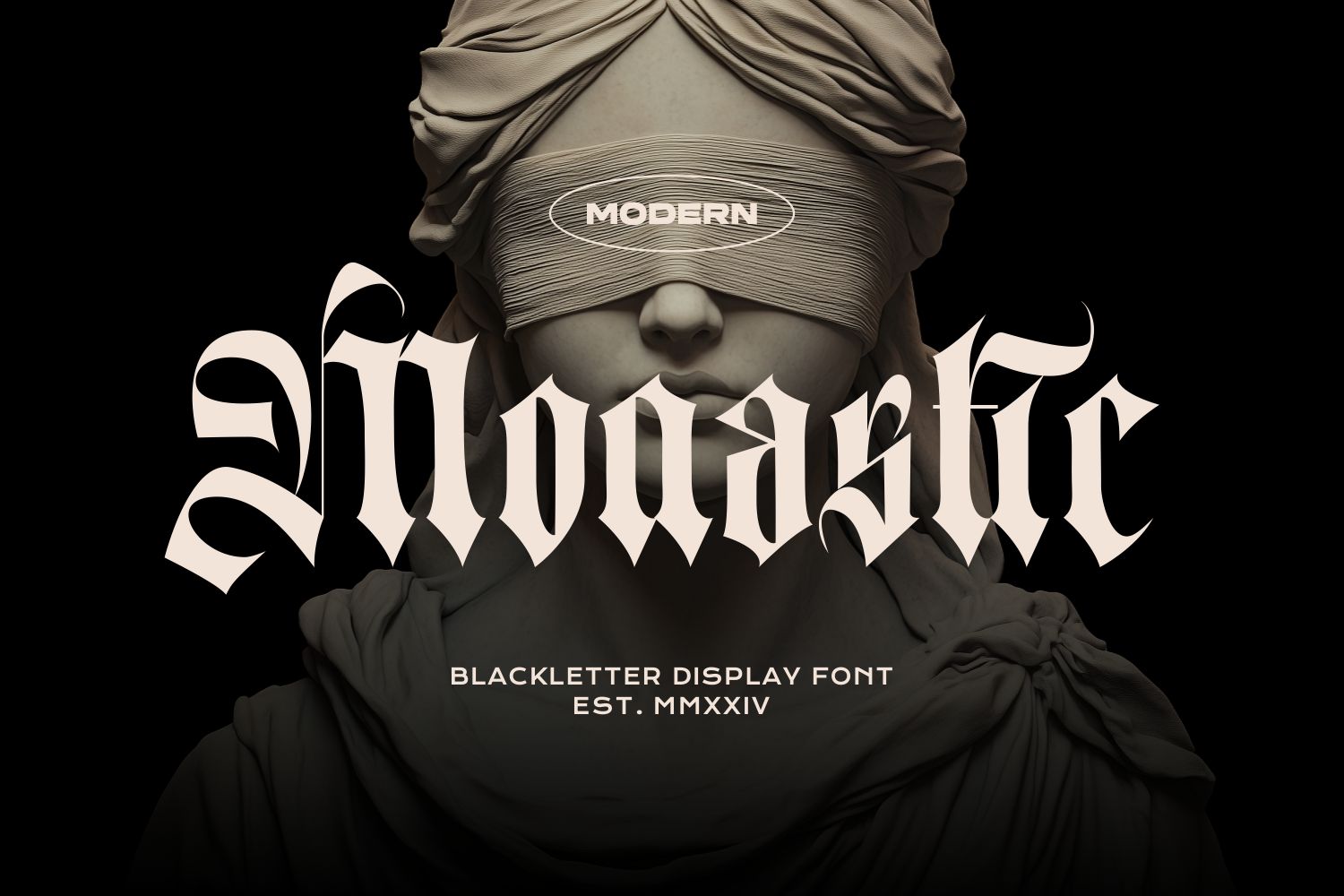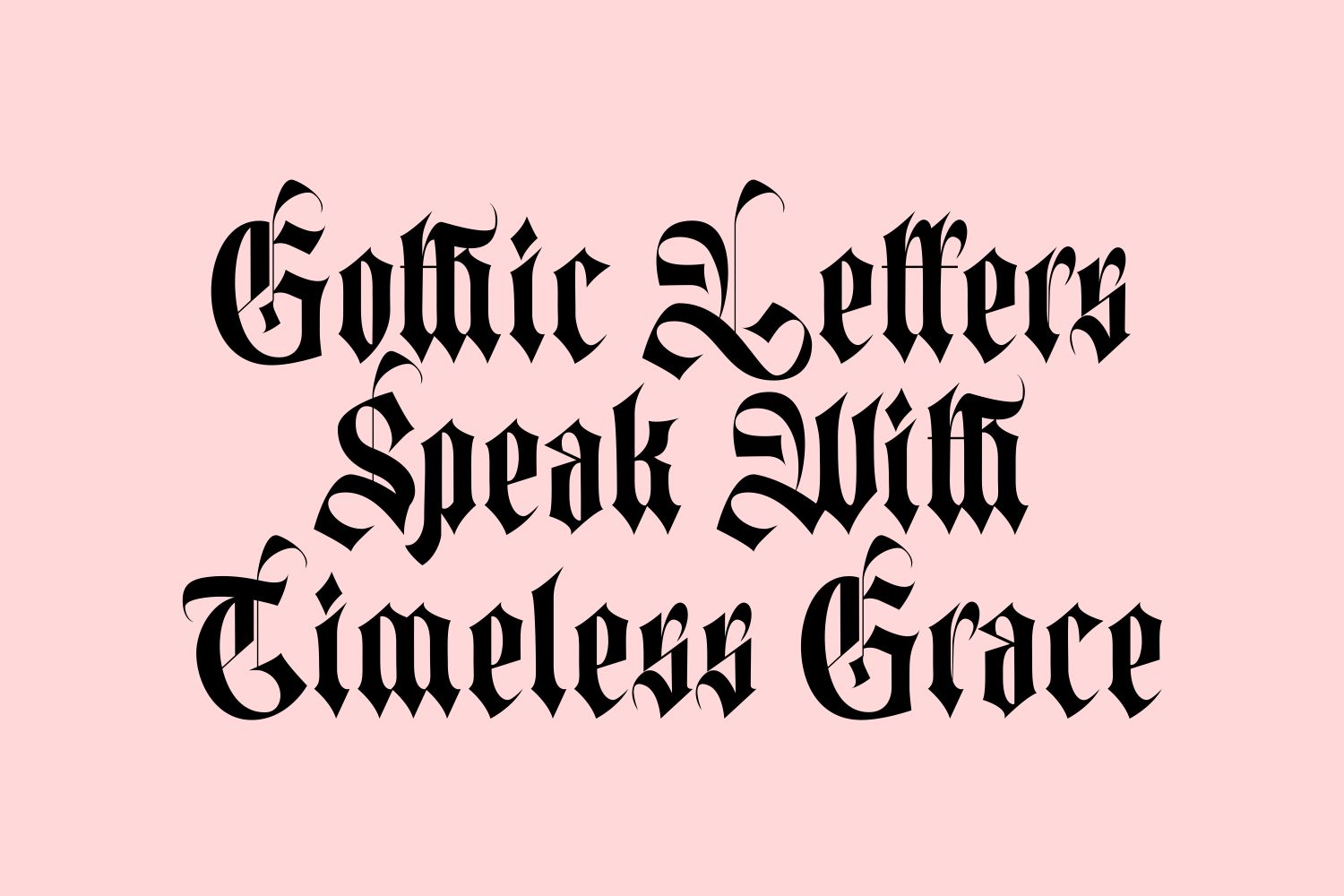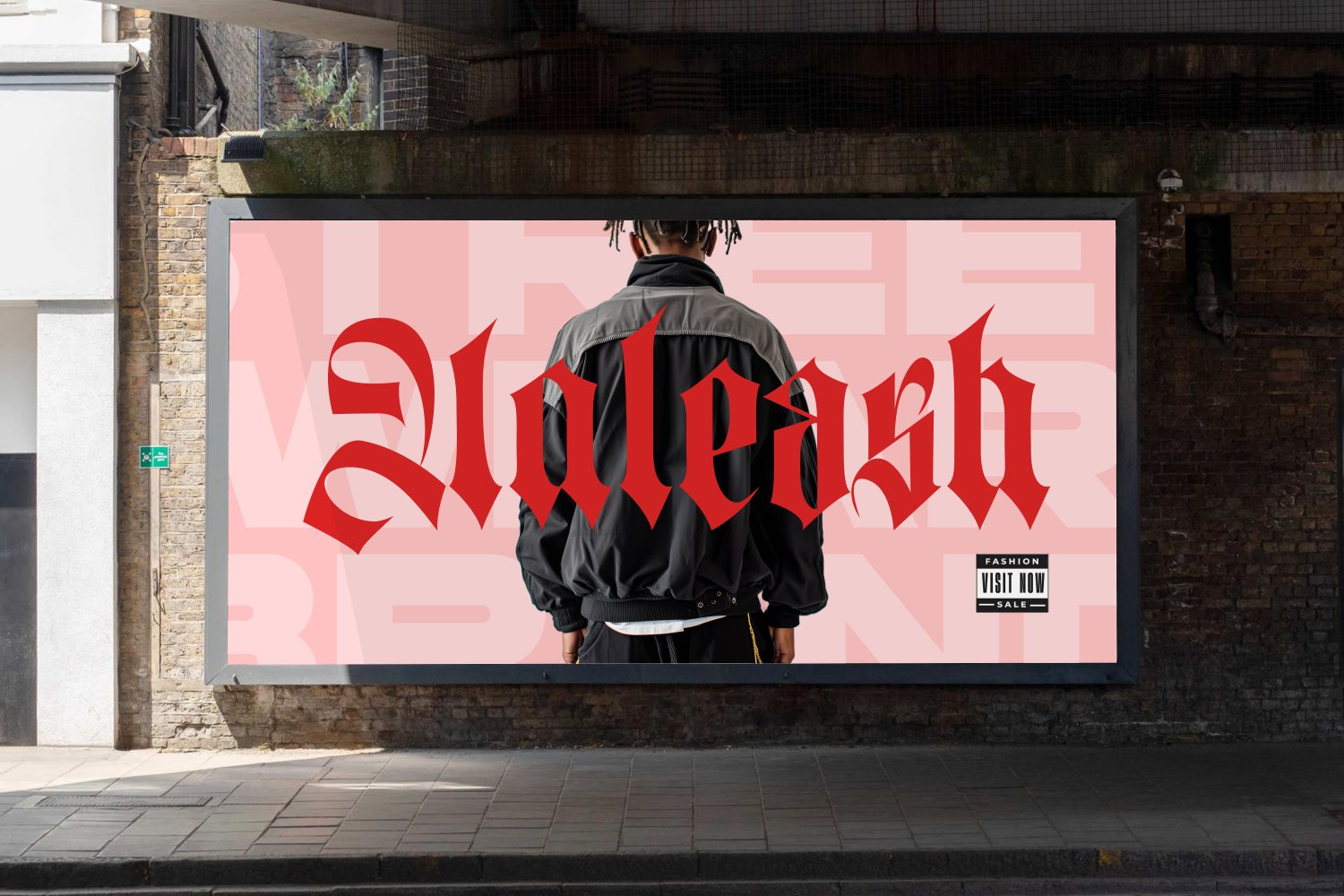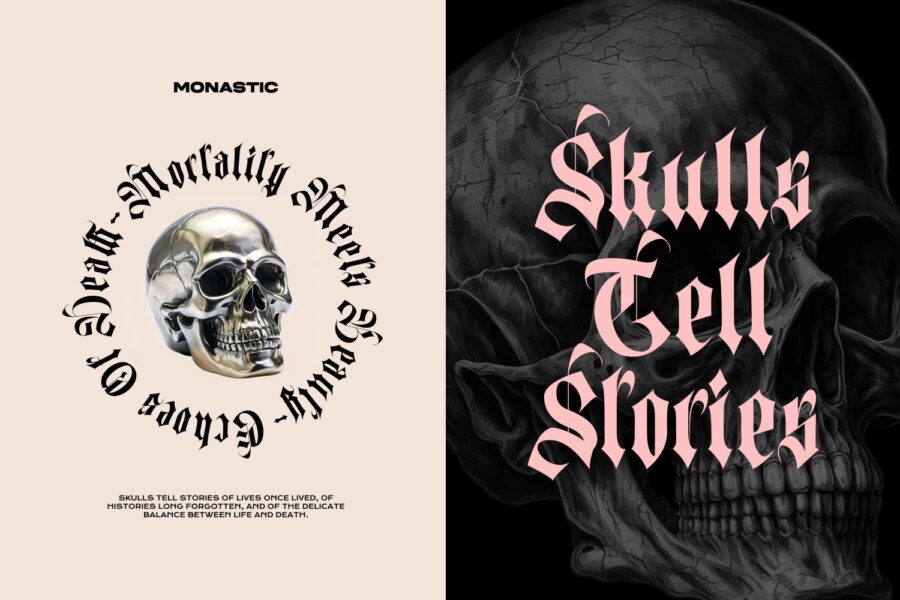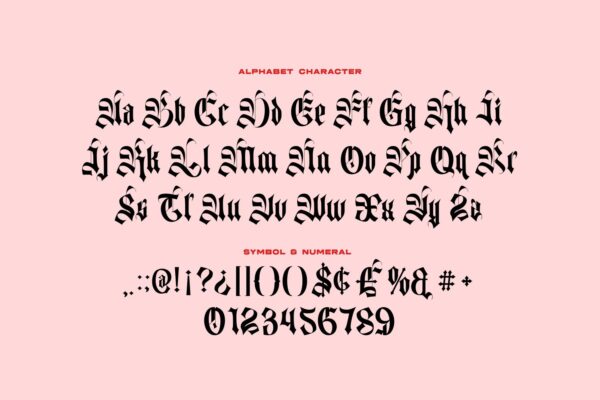
Monastic is a striking blackletter display font that blends medieval elegance with a bold, modern edge. Its sharp, intricate strokes and dramatic curves bring a powerful sense of authority and artistry to any design. Perfect for branding, editorial layouts, and statement graphics, Monastic delivers a timeless gothic presence that commands attention and respect.
Whether used for fashion campaigns, music covers, posters, or packaging, Monastic captures the essence of old-world craftsmanship while fitting seamlessly into contemporary design. Its balance of tradition and innovation makes it a versatile choice for projects seeking depth, drama, and visual sophistication.
Monastic